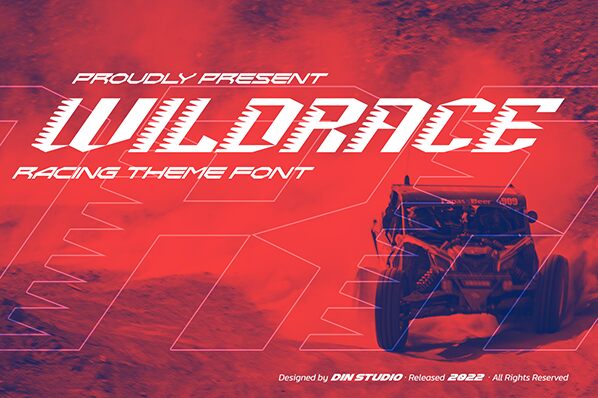
Wildrace, crafted by the imaginative minds at Din Studio, stands out as a display font that embodies the spirit of speed and innovation. Its techno-racing style is perfectly encapsulated in its semi-bold weight, offering a dynamic aesthetic that instantly conveys movement and agility. The sleek lines and sharp angles suggest the aerodynamic design synonymous with high-speed racing vehicles.
The aesthetic appeal of Wildrace is undeniable-its characters are designed to mimic the swift strokes of an accelerating racer. This makes it an ideal choice for creative projects that aim to evoke energy and excitement, such as automotive advertising, event promotion for races or eSports competitions, or dynamic branding for sports gear.
With its visually striking appearance that commands attention, Wildrace is poised to take your designs across the finish line with style and precision. Whether you're creating eye-catching headlines, impactful posters, or looking to inject a dose of adrenaline into your graphics, this font offers versatility while maintaining its strong characterful presence.
Racing Theme Font